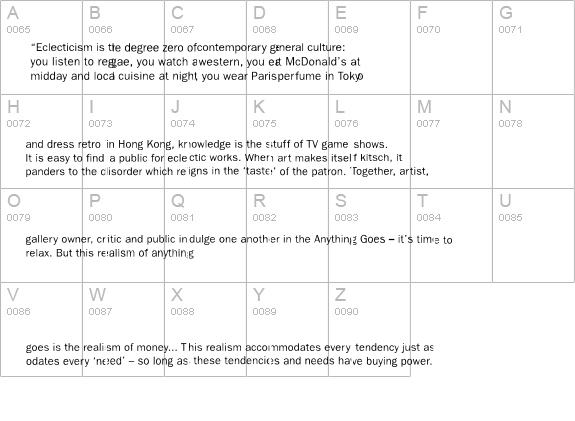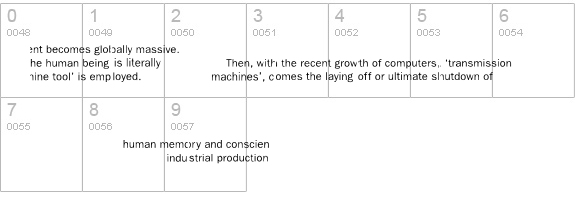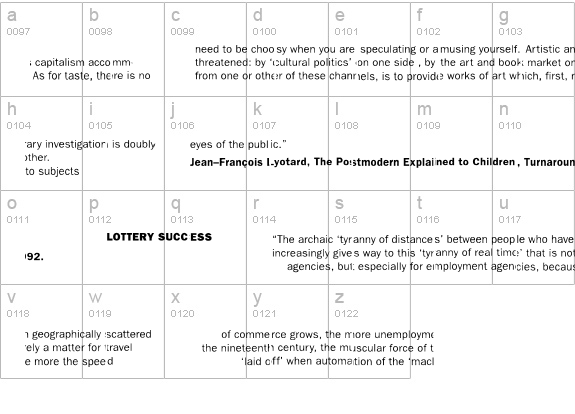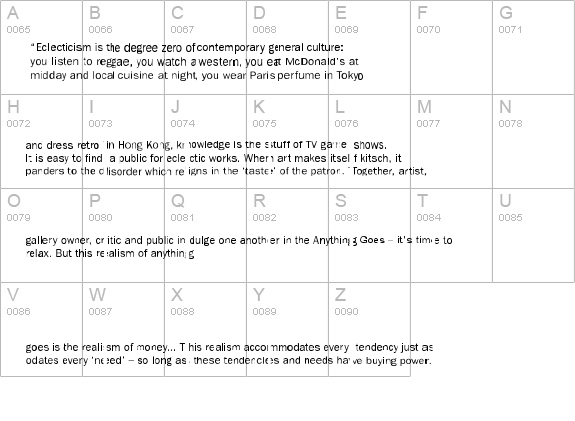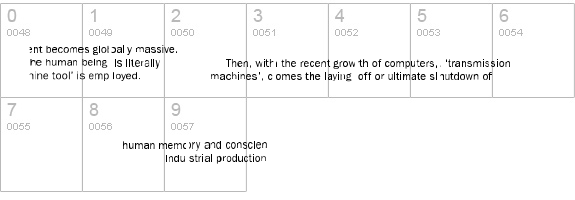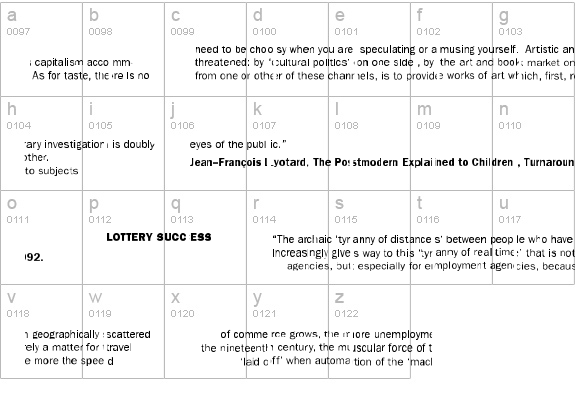
EchoDownloaded is a modern and sleek font that is perfect for adding a touch of sophistication to your designs. With its clean lines and elegant curves, this font is sure to catch the eye and make a lasting impression. Whether you're designing a logo, creating a website, or crafting a beautiful invitation, EchoDownloaded is the ideal choice. One of the best things about EchoDownloaded is that it is completely free to download. That's right, you can get this incredible font without spending a dime. It is freely available to download at FontsMarket.com, a trusted source for high-quality fonts. Not only is EchoDownloaded visually stunning, but it is also highly versatile. It comes in a range of weights and styles, allowing you to customize your design to perfection. Whether you prefer a bold and impactful look or a more subtle and refined aesthetic, EchoDownloaded has a style that will suit your needs. In addition to its visual appeal and versatility, EchoDownloaded is also incredibly easy to use. The font is compatible with all major design software, making it a breeze to incorporate into your projects. Plus, it is available in both desktop and web formats, ensuring that you can use EchoDownloaded across all platforms. So why wait? Download EchoDownloaded today and elevate your designs to new heights. With its exquisite design, free availability, and ease of use, this font is a must-have for any designer or creative individual. Head over to FontsMarket.com now and start exploring the endless possibilities that EchoDownloaded has to offer.